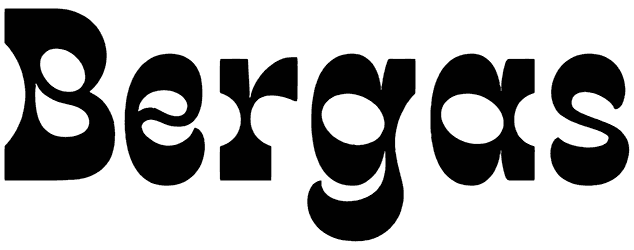
Bergas Font
The vital mission of a retro font like Bergas is to add a vintage and warm vibe to your project. This Western font can be an eye-catching adornment for the words of a classic project. You just test Bergas font for your café sign, a gallery business card, or the like, and see how amazing the outcome will be.